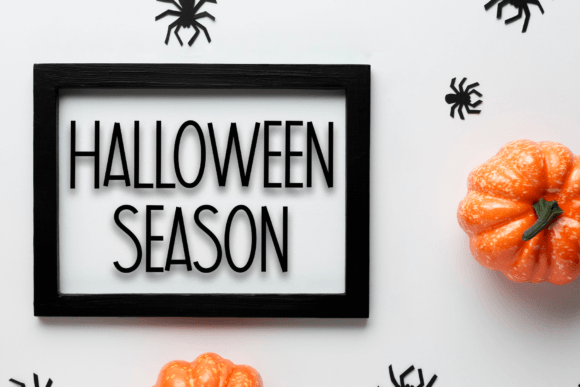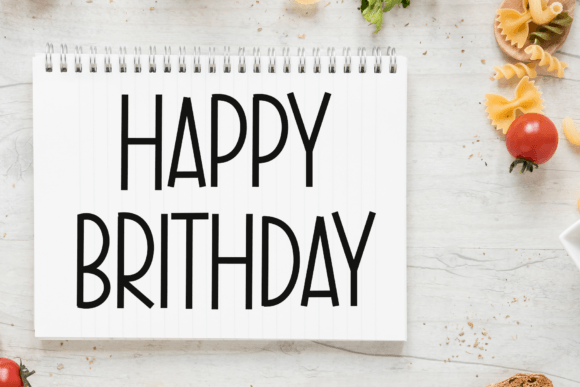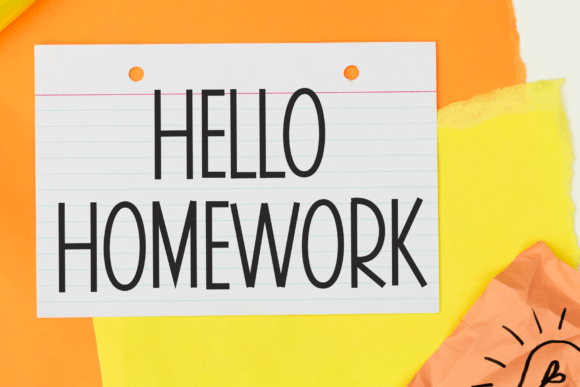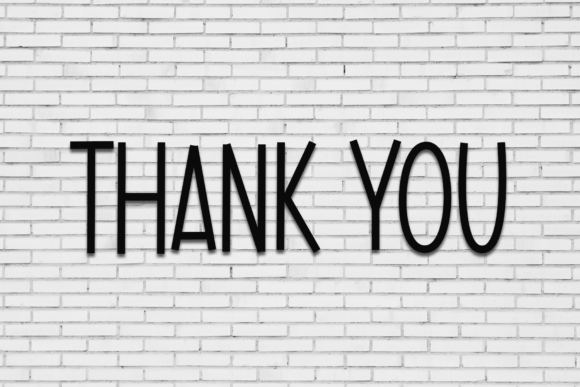
Blackside Font
Blackside Font: Casual Handwriting for Inviting Designs
“Blackside” is a gorgeous handwritten font that adds a sense of fun and casual elegance to your designs. It’s perfect for various creative projects, from product packaging to social media posts.
Key Features of Blackside Font
• Casual Style: Blackside brings a relaxed and inviting feel to designs.
• Versatile Use: Suitable for many projects, including branding and weddings.
• Authentic Look: Creates a personal atmosphere in typography.
Branding and Packaging
Blackside’s casual style is ideal for creating approachable logo designs and product packaging that convey authenticity.
Social Media and Digital Content
Use Blackside to design engaging social media graphics that stand out with their warm appeal.
Wedding Stationery
The font’s inviting look makes it perfect for creating charming wedding invitations and special event materials.
Why Choose Blackside Font?
Blackside offers more than just casual letters. Here’s why it stands out:
• Infuses projects with a sense of warmth and charm
• Conveys a sense of creativity and friendliness effectively
• Adds a touch of uniqueness and approachability to designs
By using Blackside, you open up new design possibilities. Its relaxed style works well in many contexts, from greeting cards to poster designs. The font’s ability to convey authenticity can inspire creative ideas and help you approach projects from a fresh, inviting perspective.
If you’re looking for a font that’s both fun and versatile, Blackside is an excellent choice. It’s perfect for adding a touch of casual elegance to your work, especially for projects that need a warm, approachable feel.
Explore how Blackside can transform your designs. From branding materials to personal creations, this font brings a relaxed and inviting quality to your work.